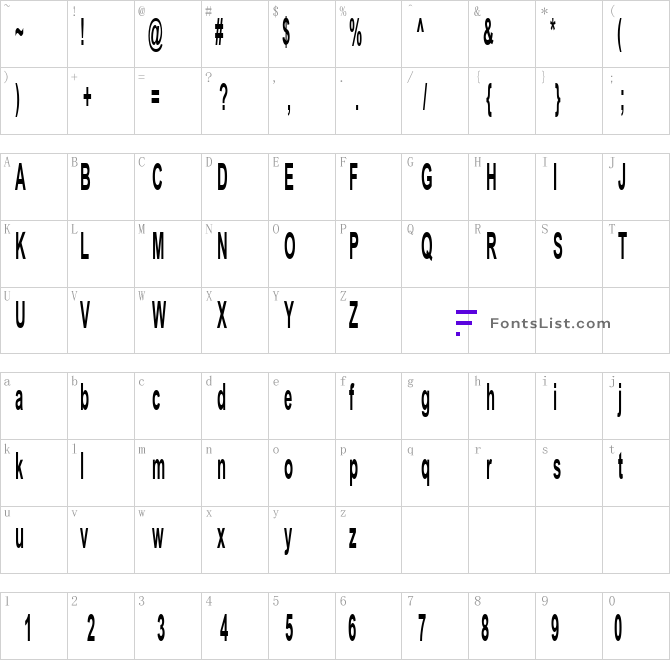
- Font Name:Antenna
Antenna-Psst.ttf is a very beautiful artistic font, Antenna-Psst.ttf is widely used in the design and printing of various books and pictures,Antenna-Psst.ttf has a strong visual impact,Antenna-Psst.ttf is a commonly used font in newspapers, magazines and books, and is used in posters, e-commerce Poster design, store design, logo design, font design and other fields.Antenna-Psst.